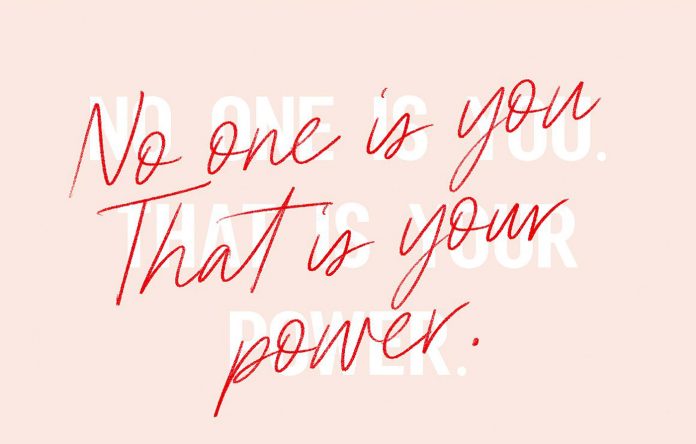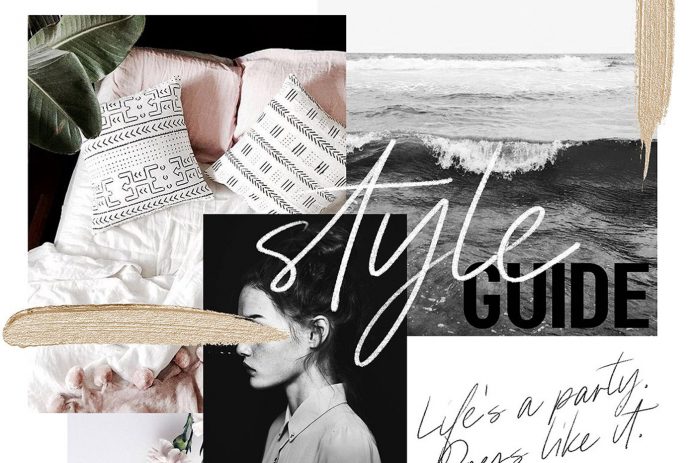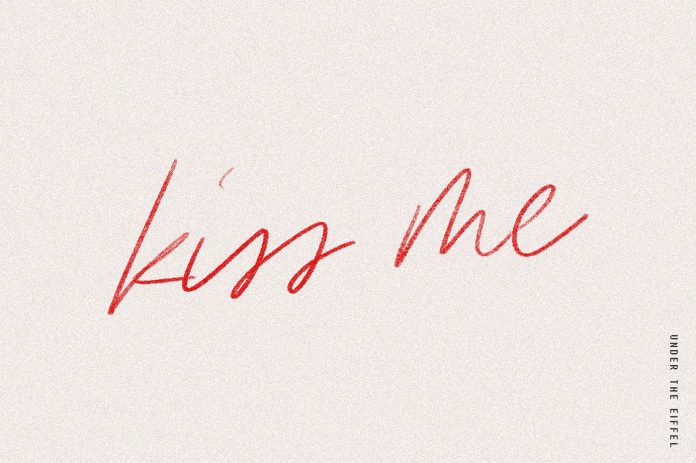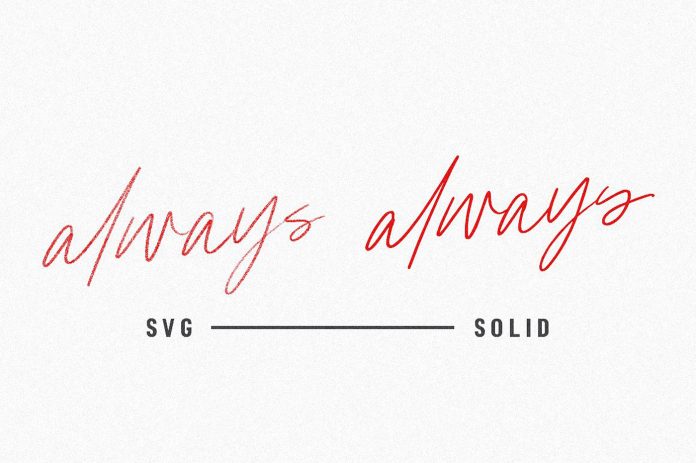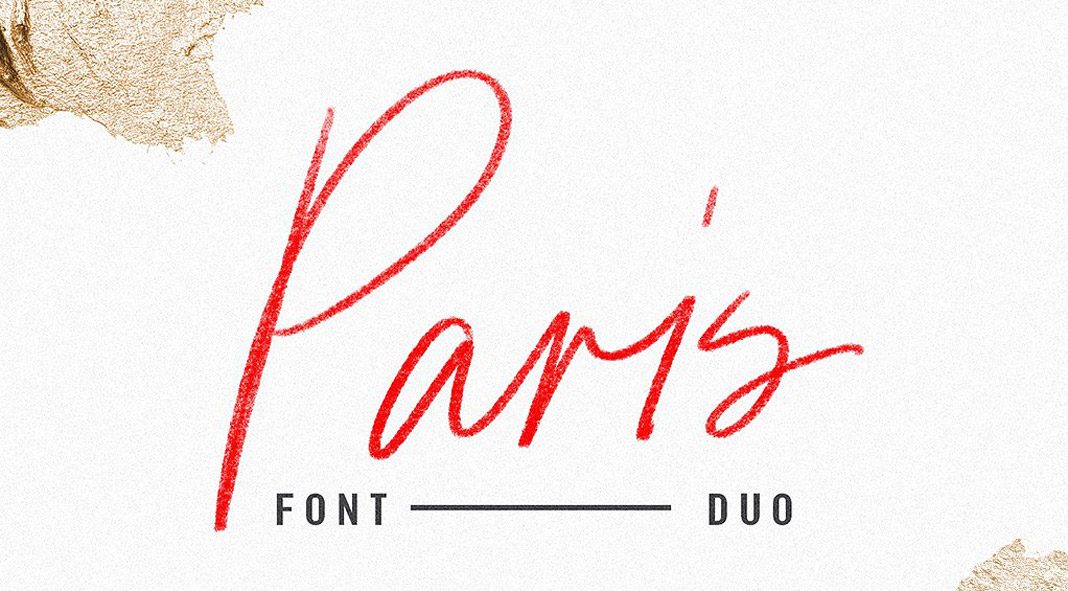
Paris, a beautiful new font duo featuring a pencil textured SVG script
Paris is a beautifully crafted font duo that has been designed and published in 2018 by Jen Wagner. It features a pencil textured SVG script plus a complementary sans serif with upright and Italic letters. In addition, the package also comes with a bonus set of 16 gold elements. With the included SVG file, you can make use of the full potential of the Paris font duo. Please note, SVG fonts currently only work in Photoshop CC 2018 and Illustrator CC 2018 (and higher). You can get their latest versions from the Adobe Creative Cloud website, just have a look here. Anyway, you can also use Paris Script as a solid version in any program you want. It also comes with an expansive range of 79 ligatures to give your typographic work an even more natural flow. Read more below or click on the following link to purchase the duo at Creative Market.
Paris Sans is an all-caps sans serif that serves as the perfect complement to the hand-drawn script version. You can use it for quotes, Instagram posts, and much more. Included as TTF and OTF formats, it supports multiple languages. Paris Sans Slant is the italicized version of the all-caps sans serif. Pairing it with the script will help you to give your lettering work more movement. It also supports multiple languages. As a bonus, the download pack includes 16 high-res gold elements, which were made from real gold paint. They have included fully isolated PNG files.